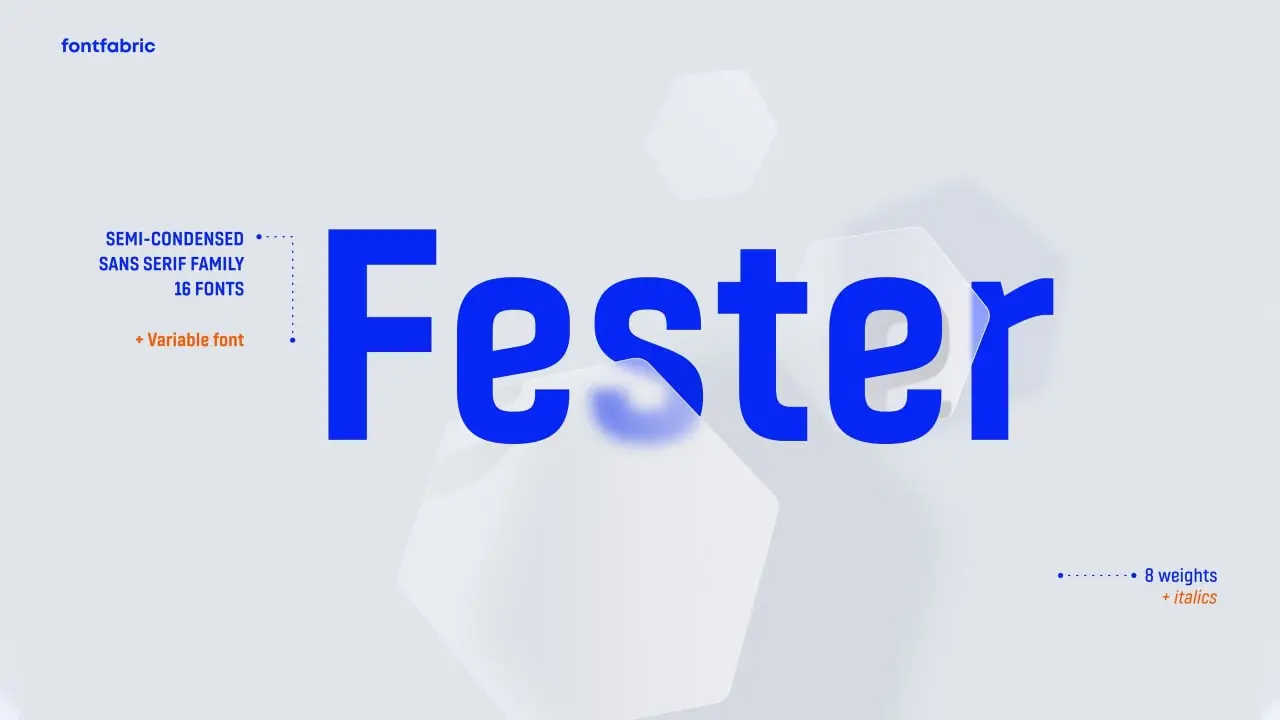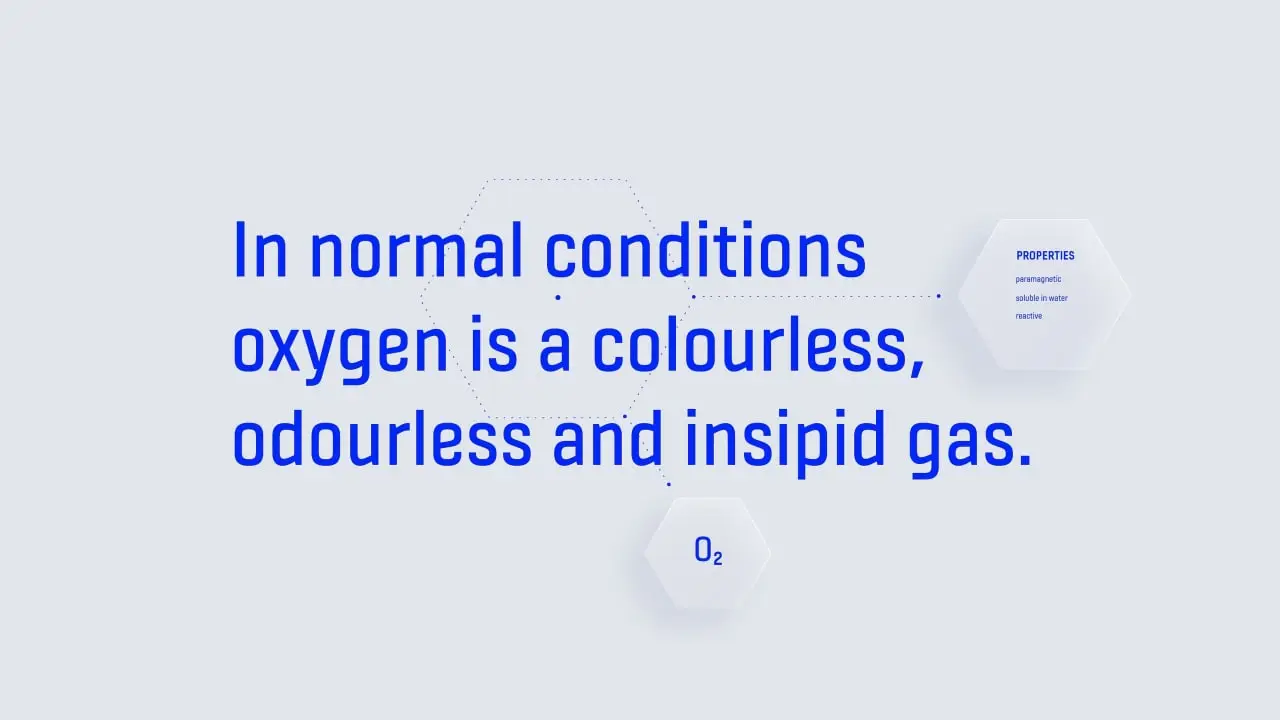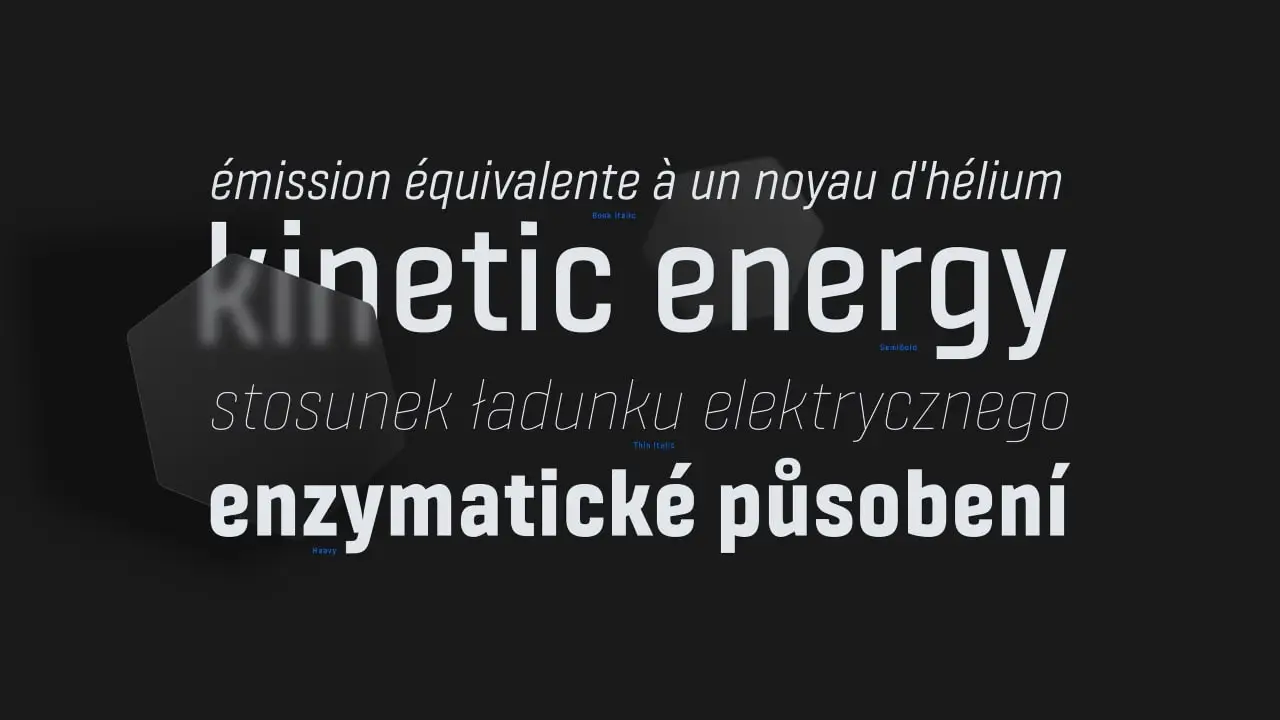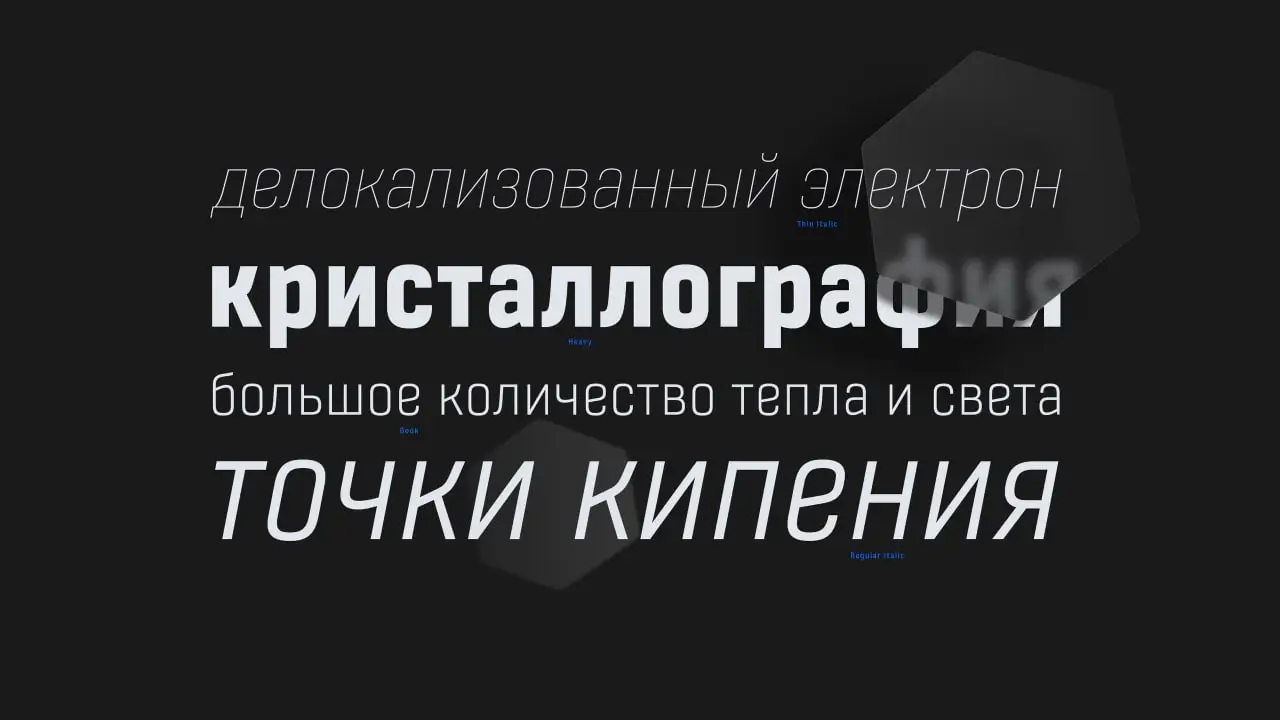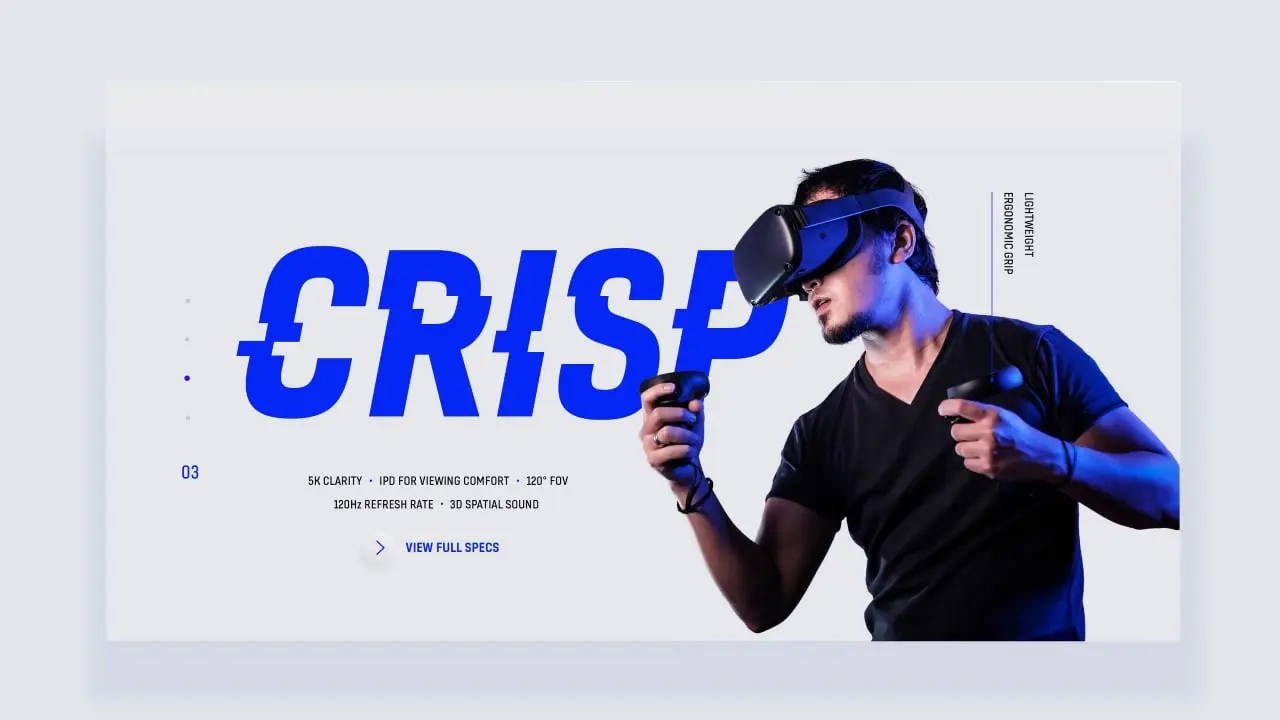
Fester Font
Fester Font is a versatile typeface designed to bring a unique flair to your projects. With its distinct style, it is perfect for a variety of applications, including branding, logos, web design, and print materials.
• Multiple weights for flexibility in design
• Stylish and modern aesthetic
• Easy to read at various sizes
Utilize Fester Font for eye-catching headlines, promotional materials, and digital interfaces to make a lasting impression.